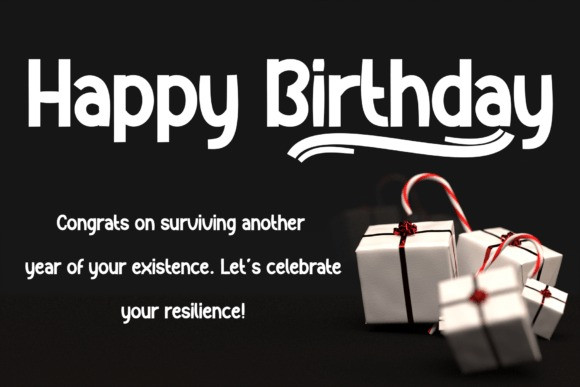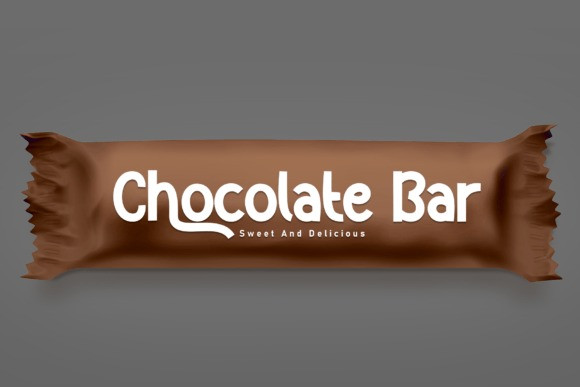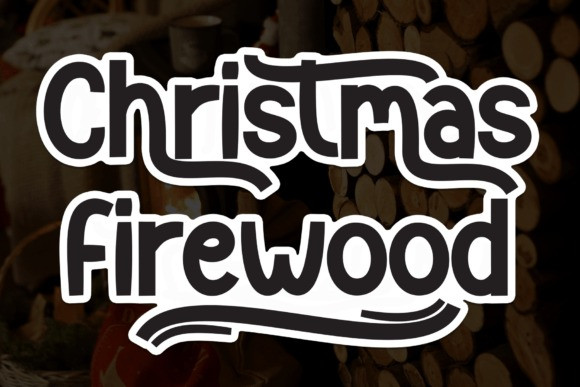
Christmas Firewood Font
Christmas Firewood Font is a sweet and friendly handwritten font. Its natural and unique style makes it incredibly fitting to a large pool of designs. The only limit is your imagination!